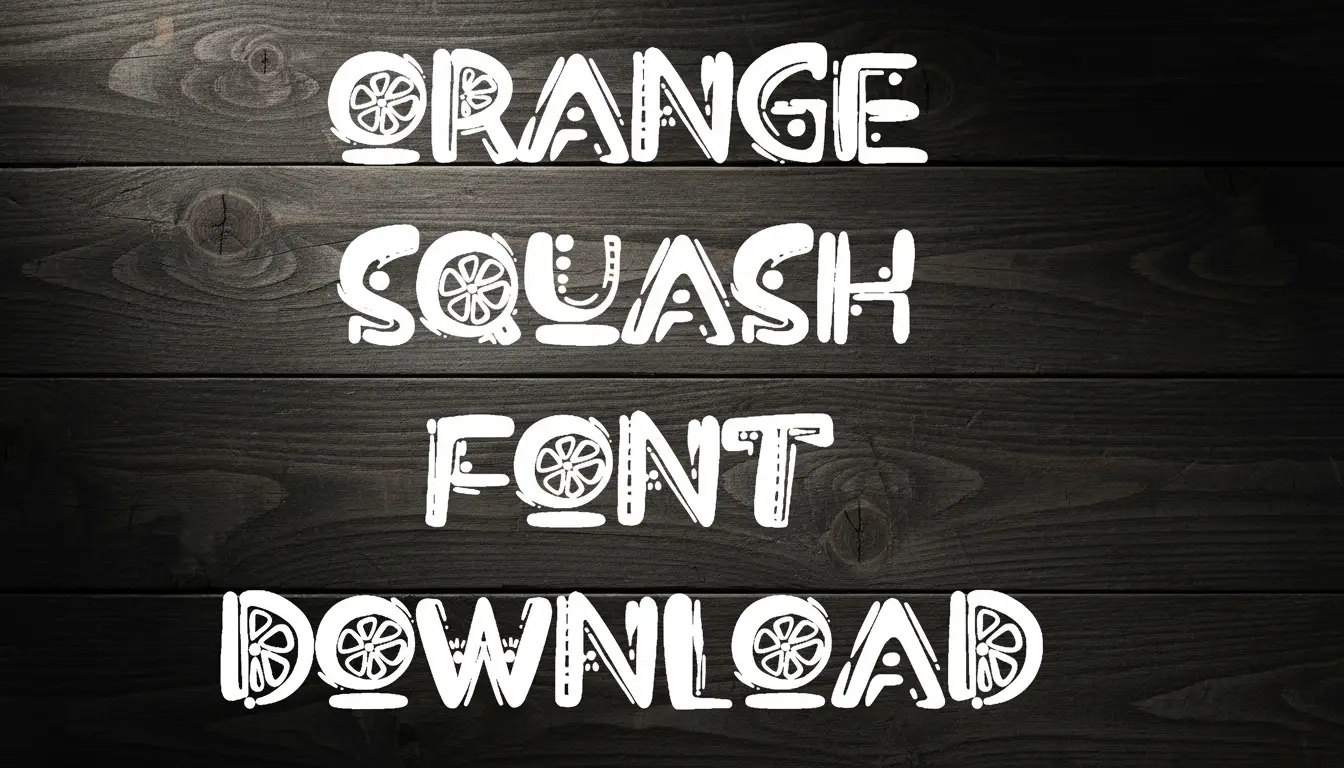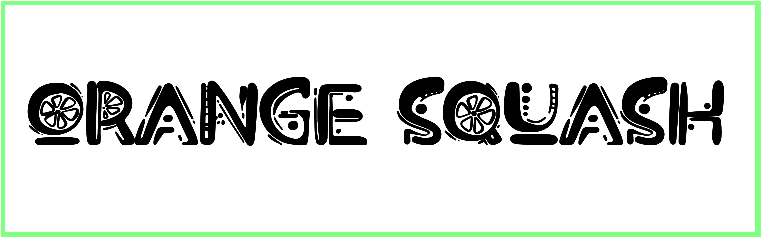
Orange Squash Font
Orange Squash Font Preview
Orange Squash
Orange Squash Character Map
Orange Squash is a fancy font created by Alpaprana Studio. Bold and full of character, it's built to stand out rather than blend in. You can download it for free and test it with your own words in the preview above.
Orange Squash Font Details
What You Can Type With Orange Squash
With complete upper and lowercase letters and all ten digits, Orange Squash is ready for real wording, not just a single headline. Common punctuation such as &, !, ? and @ is included as well. It also has the accented letters you need for Spanish, French, German, Portuguese and Italian.
Where Orange Squash Works Best
Think of Orange Squash for posters, logos and eye-catching headlines. Use it for one standout word or headline and let simpler fonts handle the rest.
Does Orange Squash support accented letters?
Yes. Orange Squash includes the accented letters needed for Spanish, French, German, Portuguese and Italian, so it works for more than just English.